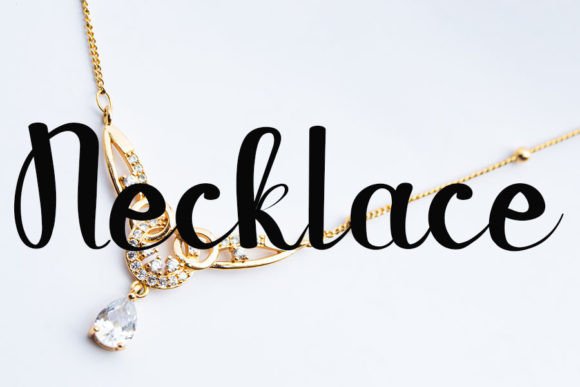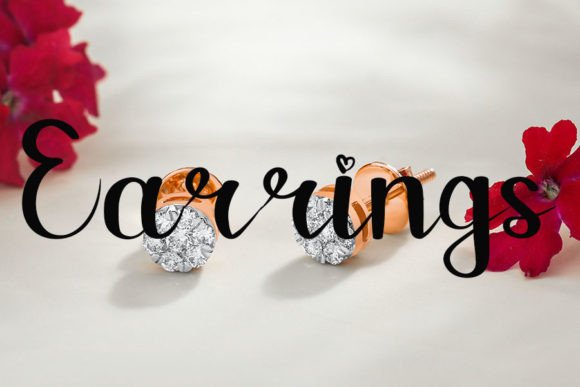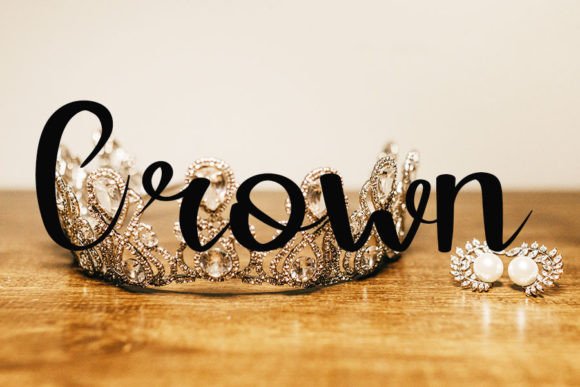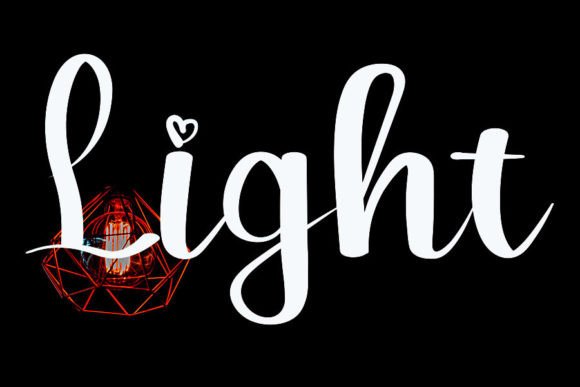
Diamond Font
About Diamond Font
Introducing “Diamond,” a neat and beautiful handwritten font that brings an elegant touch to your favorite projects. This font is crafted with precision, offering a distinct and timeless style that adds a touch of sophistication to your designs.
The elegance of “Diamond” makes it a versatile choice for a variety of projects. Whether you’re working on branding, invitations, quotes, logos, or any other creative endeavor, this font is designed to enhance your designs with its neat and beautiful handwritten style.
Fall in love with the distinct and timeless character of “Diamond,” and notice how it elevates your creations with a touch of class. The clean lines and carefully crafted characters make it a standout choice for projects that require a balance of style and readability.
In summary, “Diamond” is more than just a font; it’s a creative asset that brings an elegant touch to your designs. Download “Diamond” now and explore how it can enhance your branding, invitations, and various other creative projects. With its neat and beautiful handwritten style, “Diamond” is ready to add a touch of sophistication to your next design endeavor.